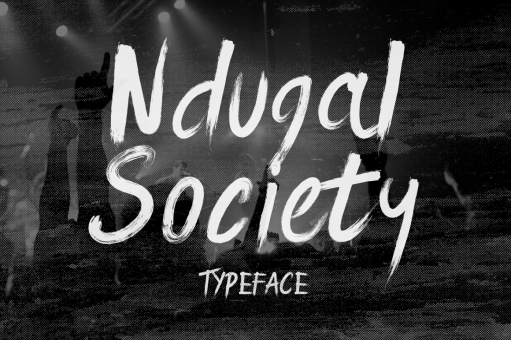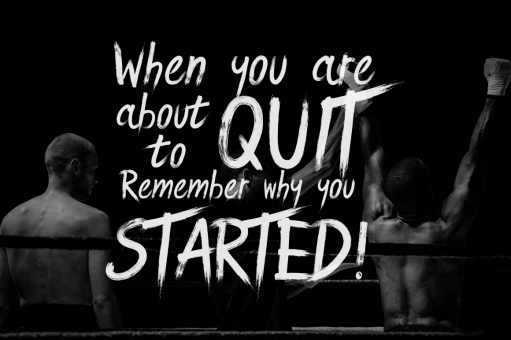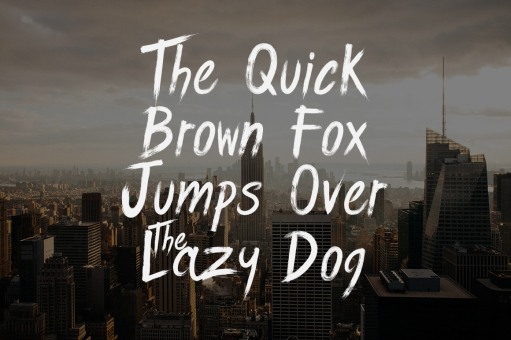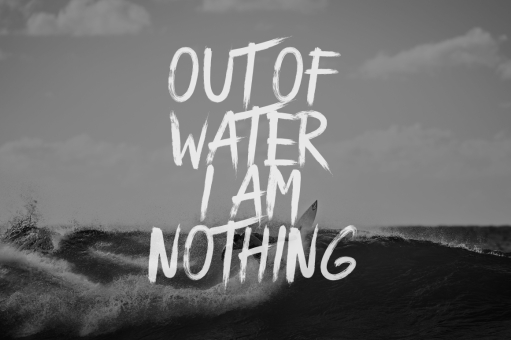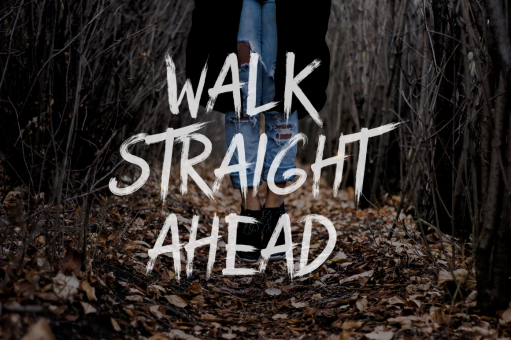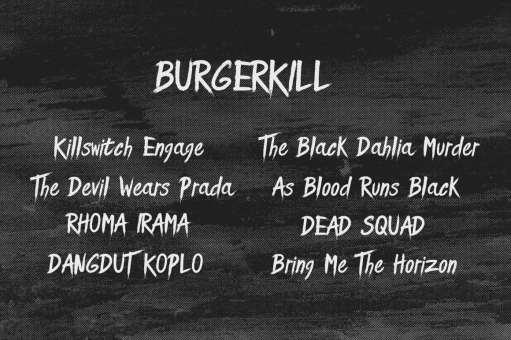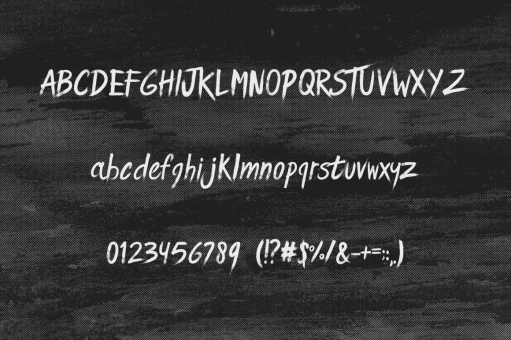
Ndugal Society
Ndugal Society is a handwriting typeface that make with natural ink. Uses for headline, poster, t-shirt, labels, clothing, film, gigs, album cover and much more.
Designer: Wowok Prast
Publisher: Wowok Prast